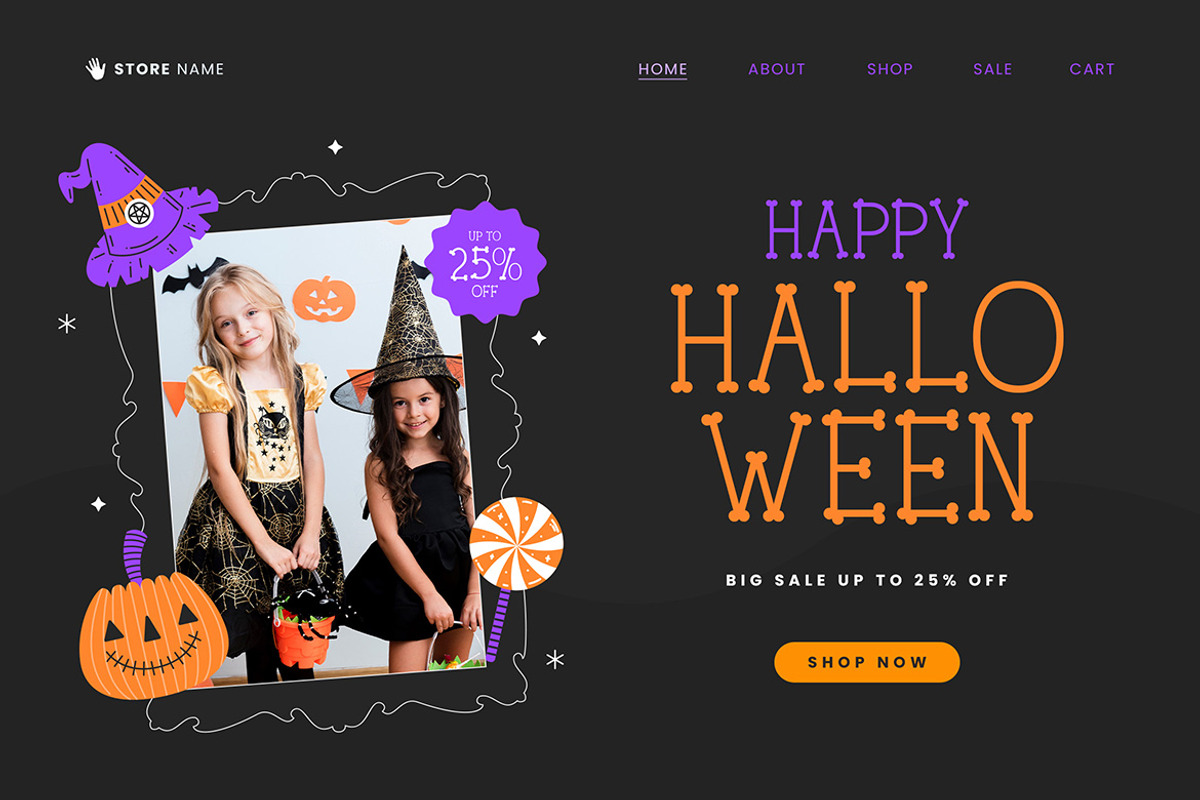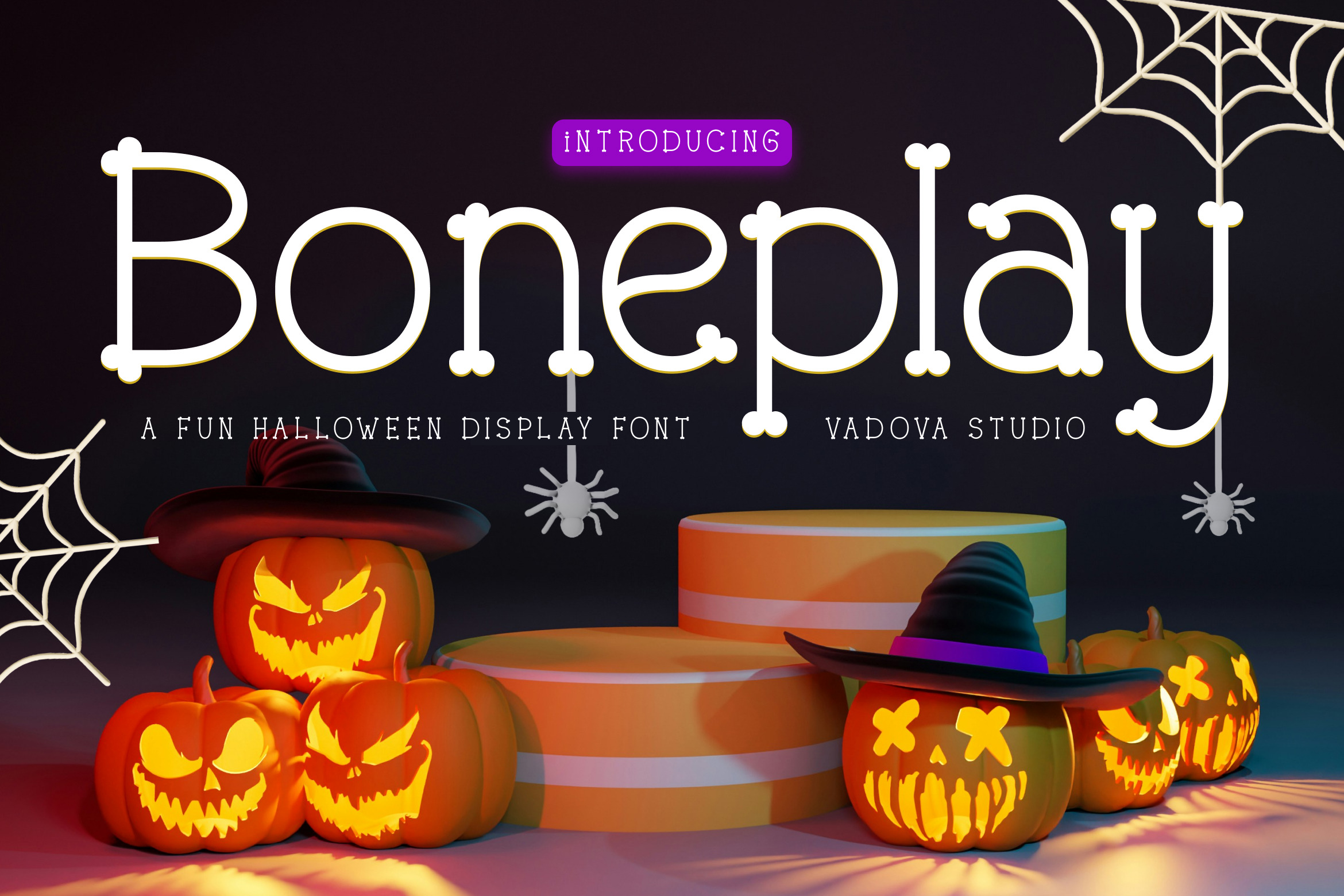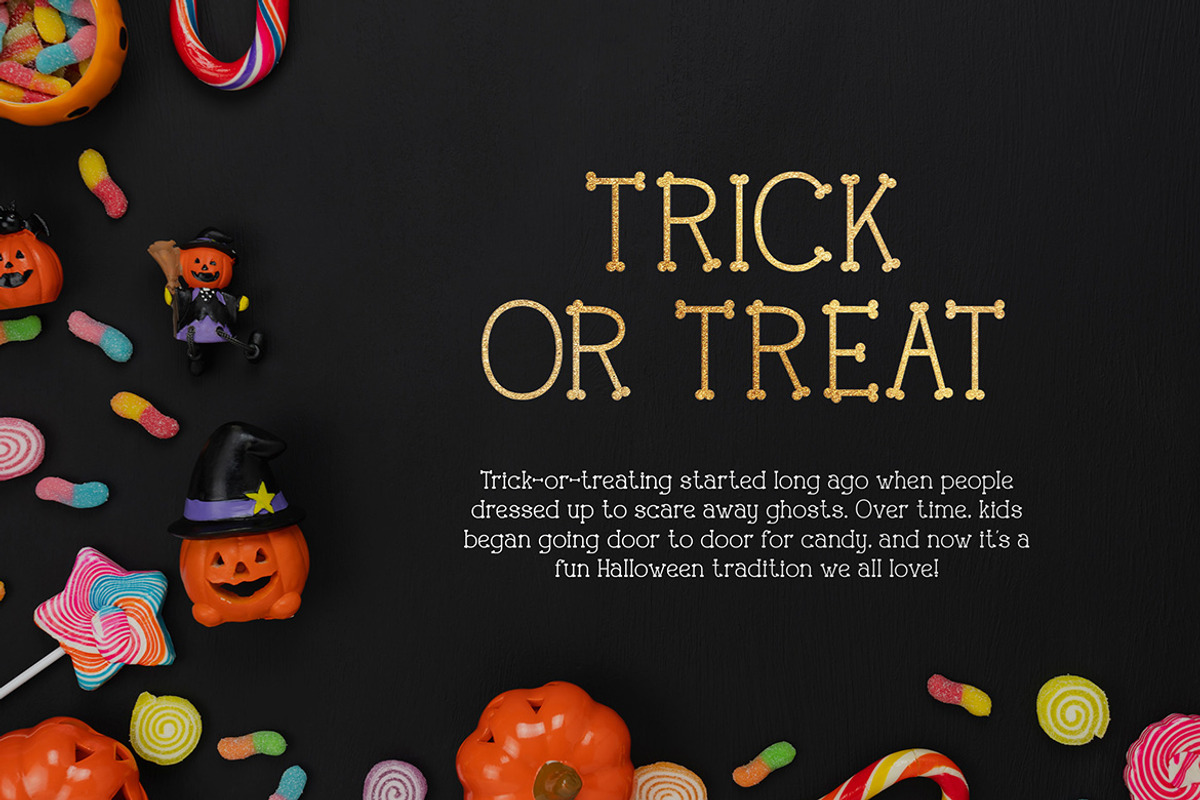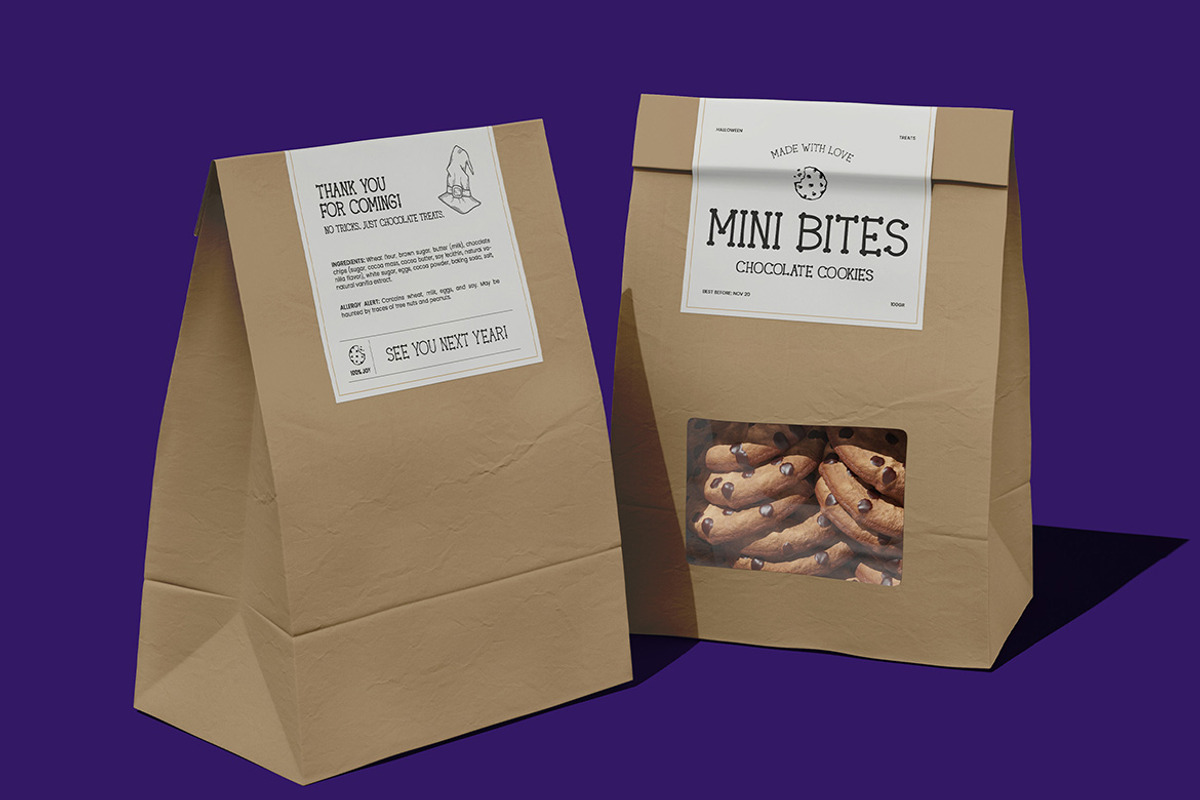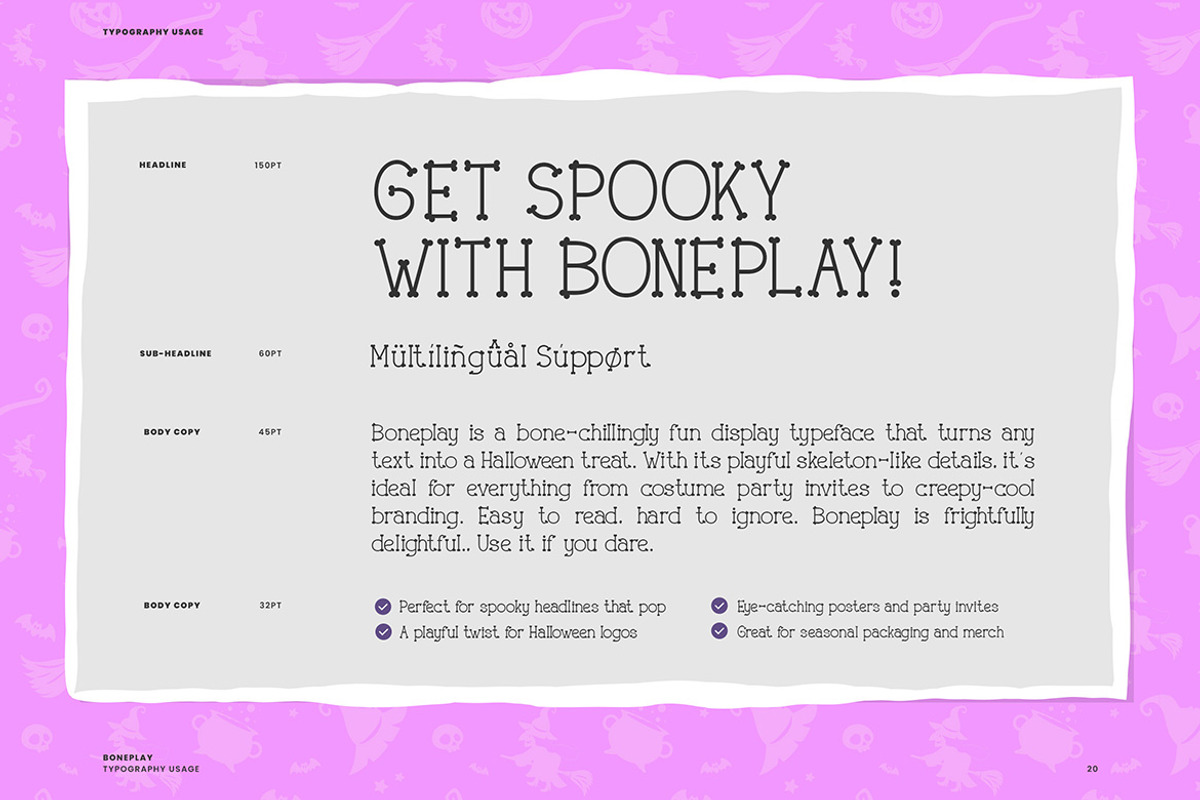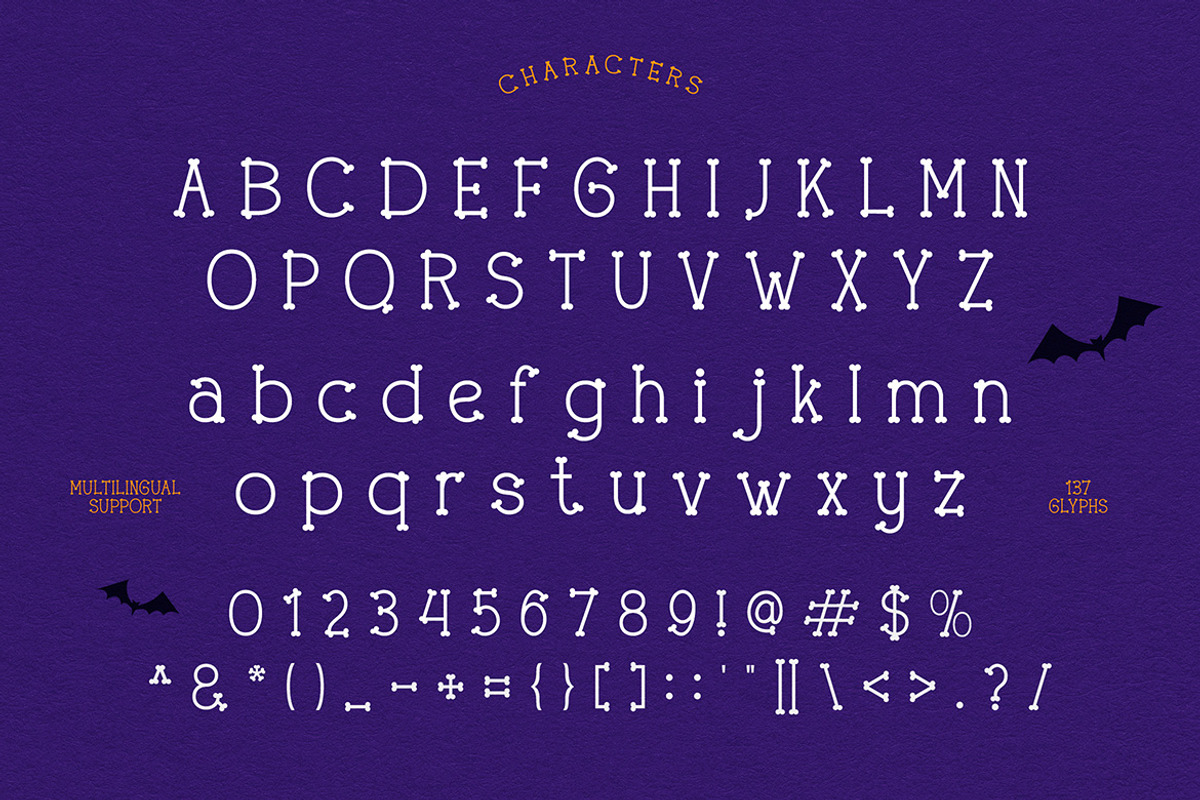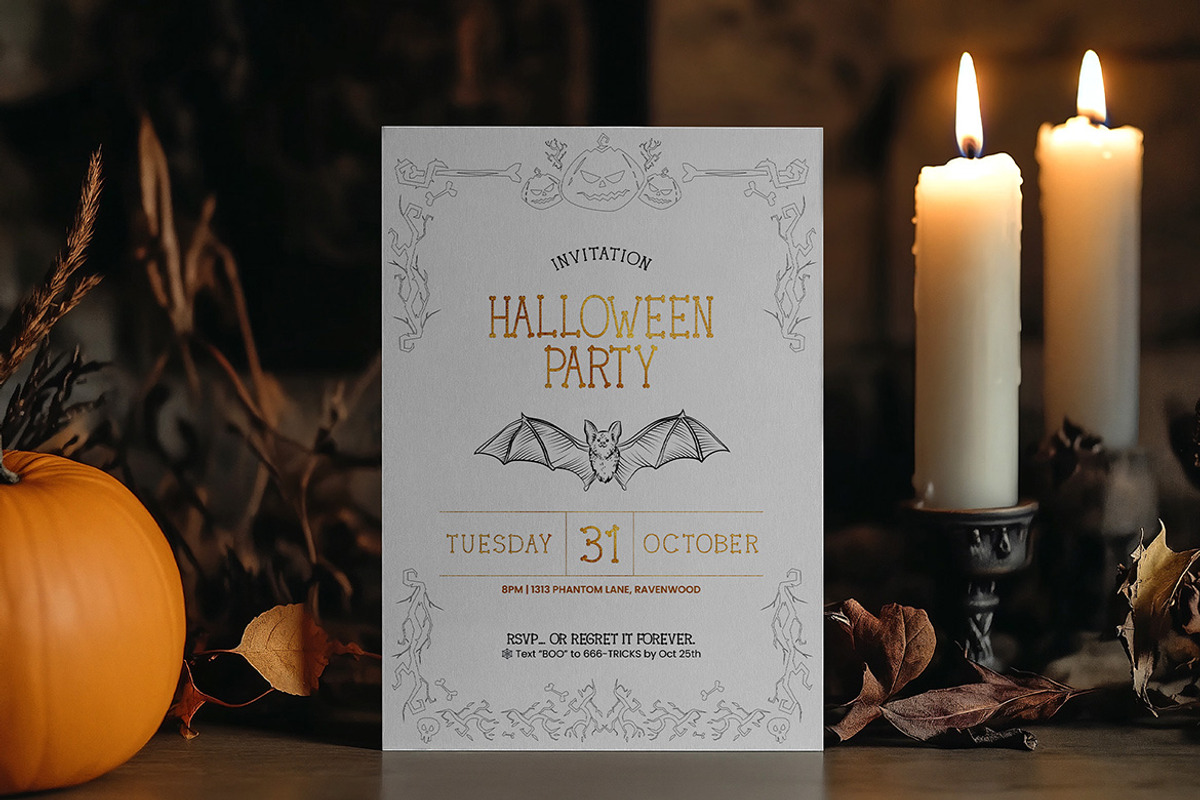
Boneplay Halloween Display Font
Boneplay is a fun and spooky Halloween display typeface designed with playful bone-shaped details that instantly bring festive character to your designs. Its quirky skeletal strokes and friendly rounded ends give it a balance of creepy and cute — perfect for Halloween posters, party invitations, themed social media graphics, product packaging, and decor.
Every letter feels animated and full of personality, transforming your text into a delightful Halloween treat. Boneplay maintains great readability while still embracing its spooky aesthetic, making it ideal for both bold headlines and decorative subtext.
Created for designers who want their projects to feel spirited, fun, and seasonally themed, this typeface includes uppercase and lowercase characters, numbers, punctuation, and multilingual support. Whether you're designing party signage, trick-or-treat materials, costume labels, or seasonal merchandise, Boneplay adds a charmingly spooky twist to every design.
- Unique Halloween display style with playful bone-like shapes
- Rounded skeletal details for a fun spooky character
- Complete uppercase & lowercase alphabet
- Numerals and punctuation included
- Great for Halloween titles, branding, and event graphics
Best Uses for Boneplay
- Halloween party invitations & spooky greeting cards
- Seasonal posters, banners, and promotional graphics
- Trick-or-treat packaging, candy labels, and product branding
- Social media posts for Halloween campaigns
- Stickers, tags, and printable craft materials
- Children’s Halloween books & themed illustrations
- DIY decorations, digital overlays, and costume design assets
- Multilingual support for diverse audiences
- Maintains clarity while embracing spooky personality
- Suitable for large headlines and smaller decorative text
- Ideal for themed merchandise like shirts, mugs, and party props
Bring your Halloween designs to life — Boneplay makes every project spooky, fun, and unforgettable.